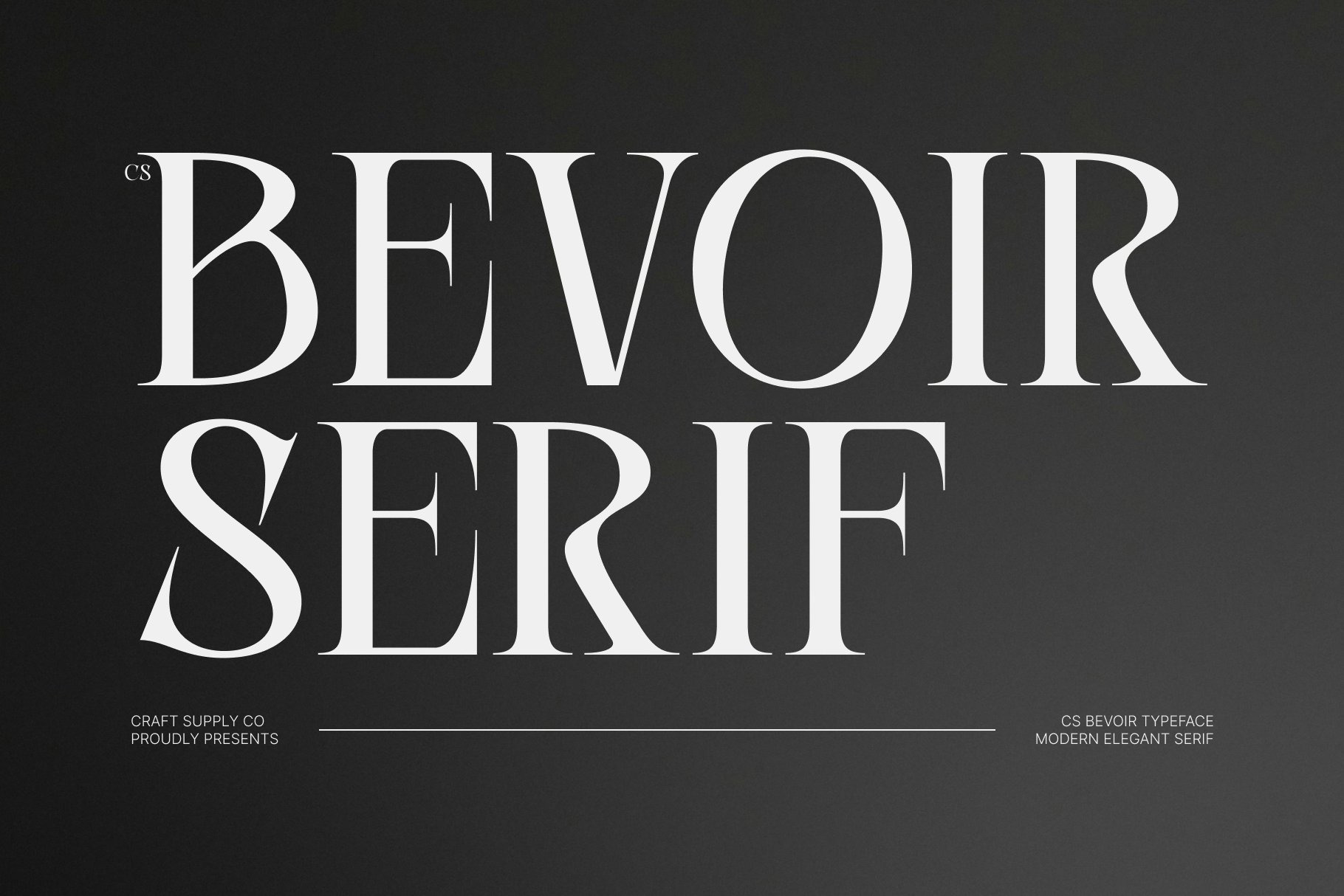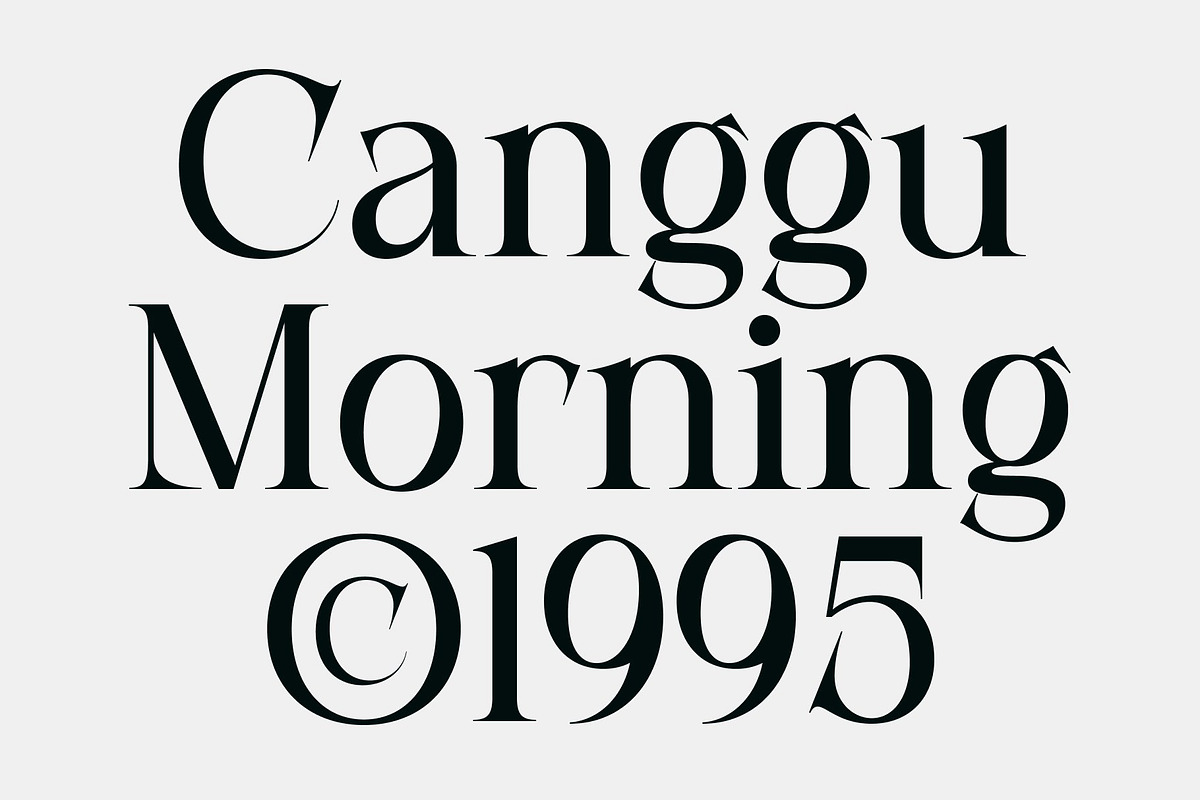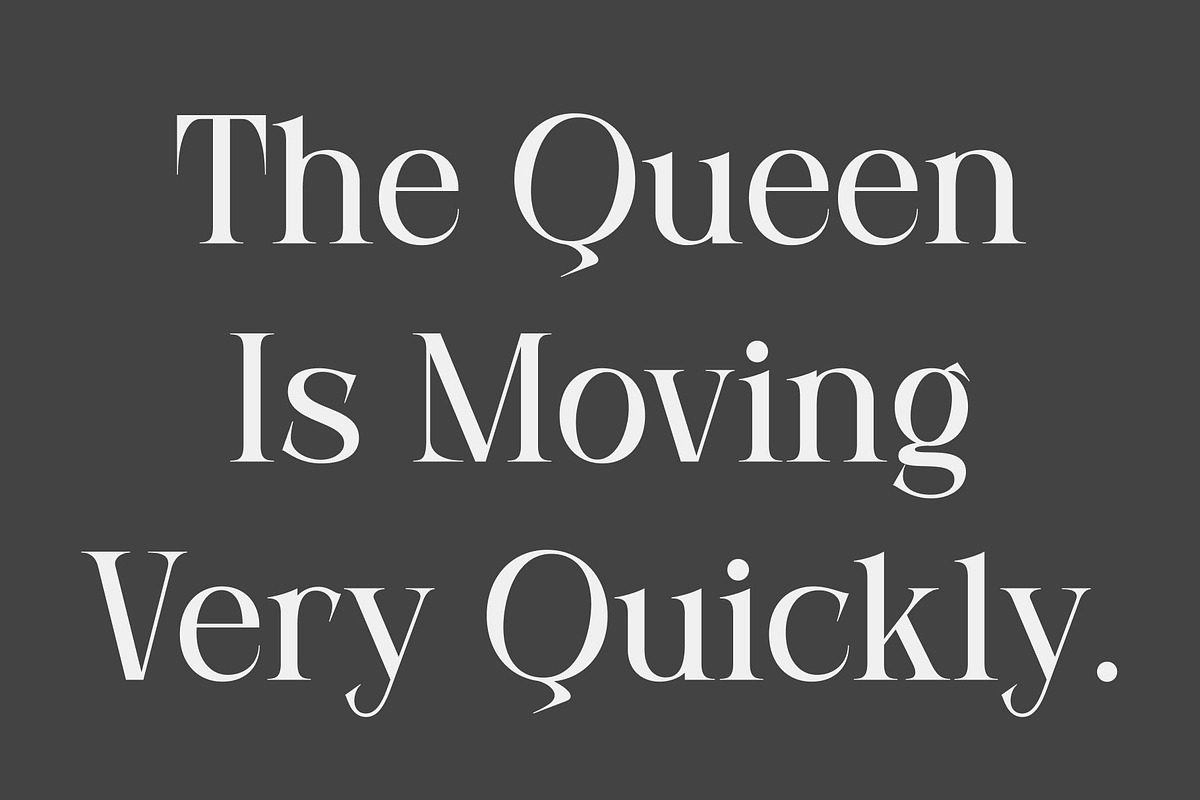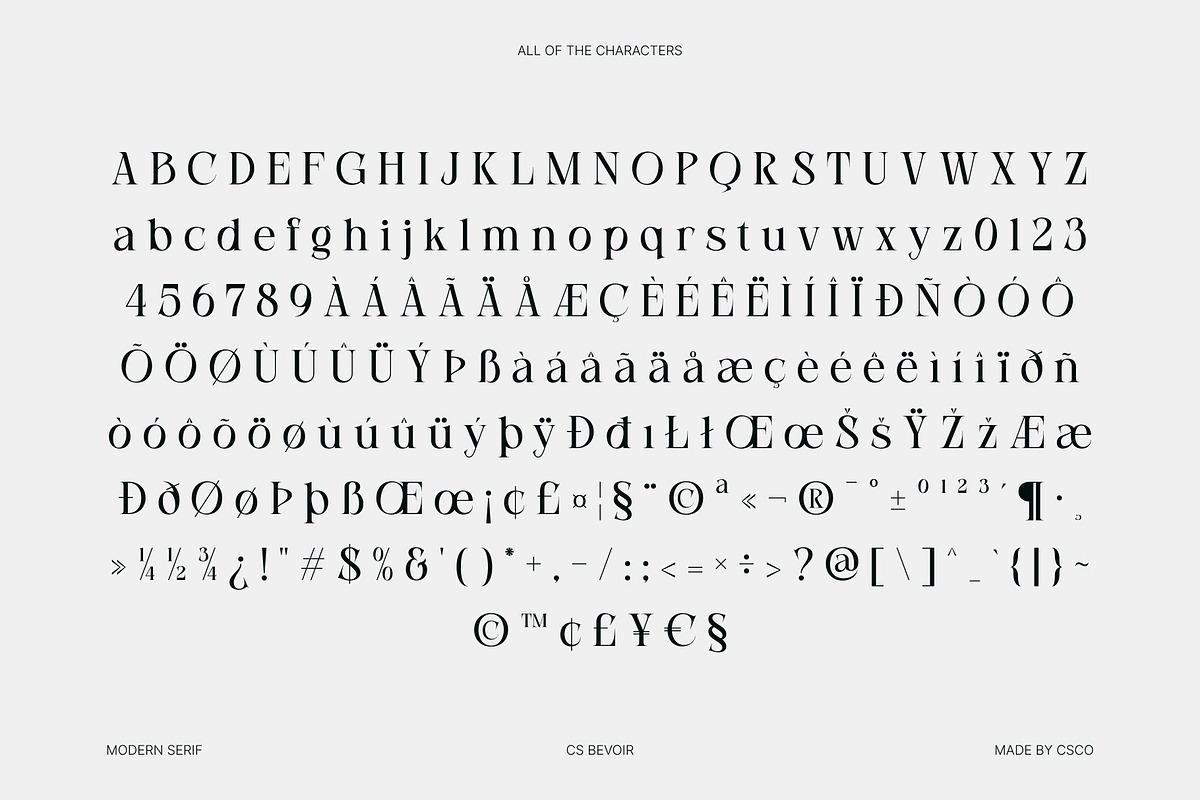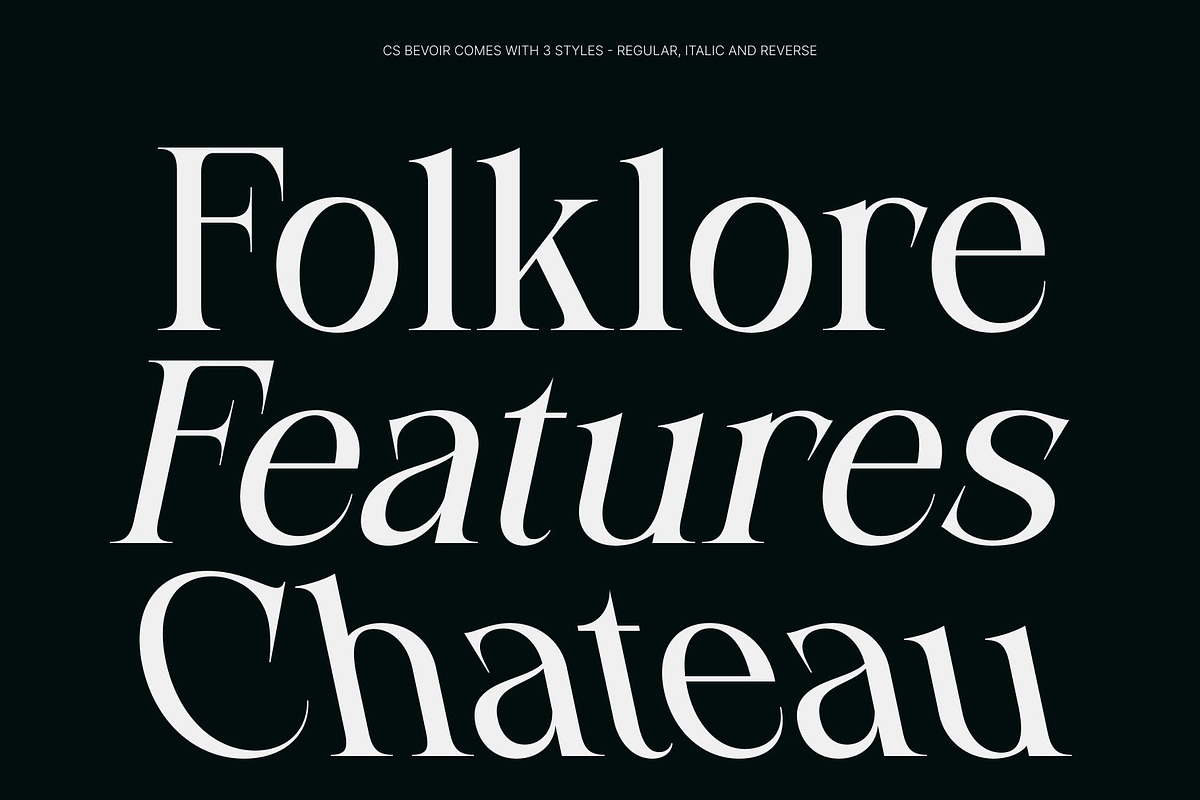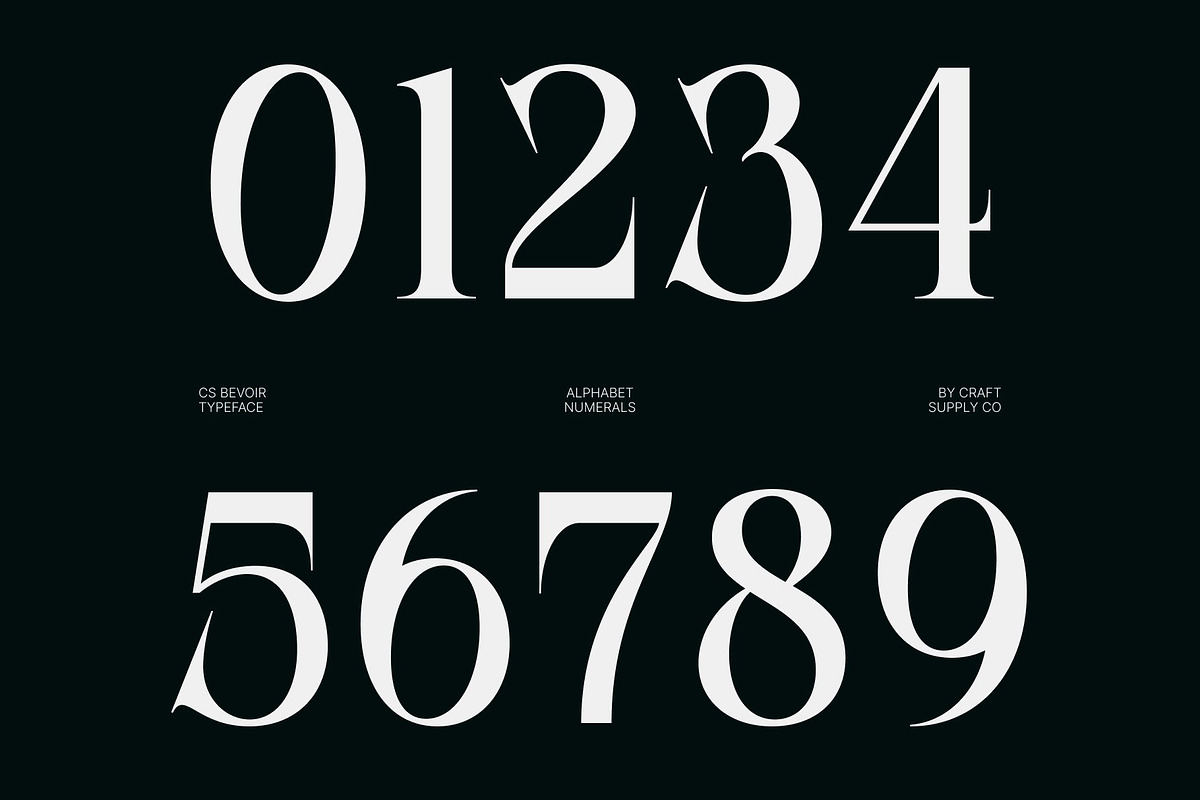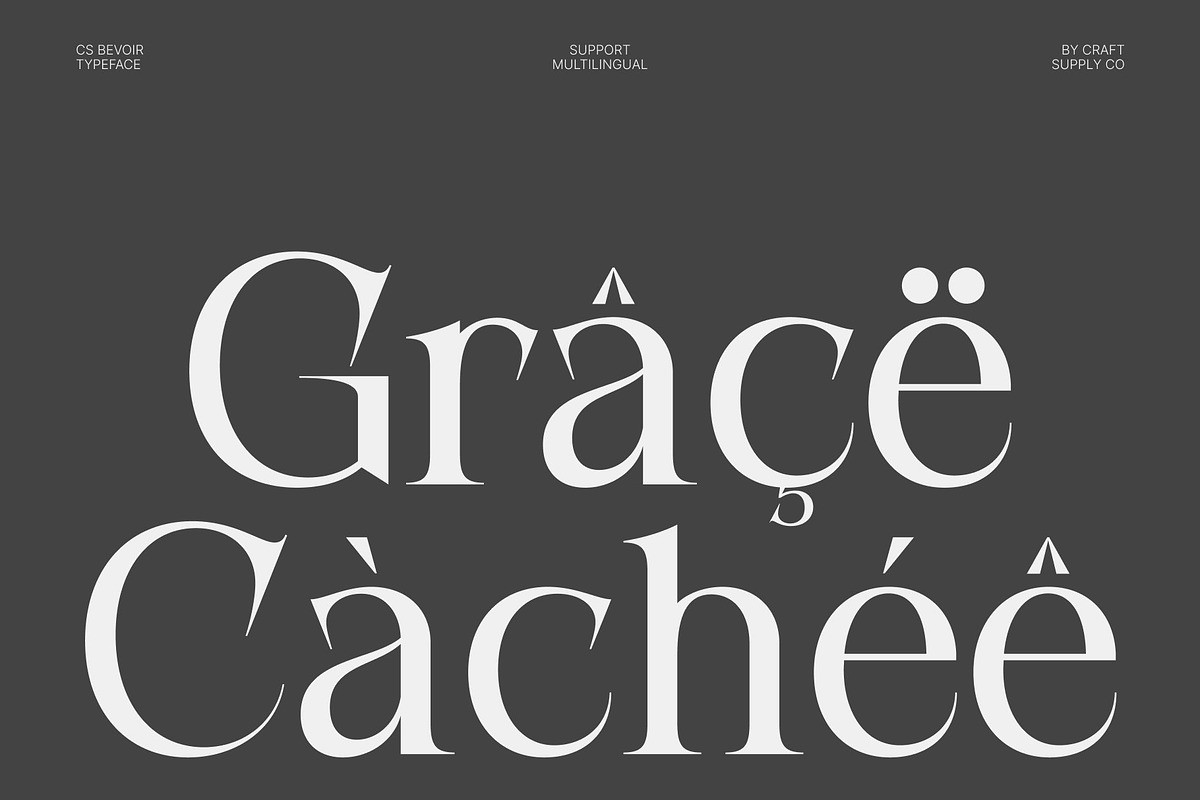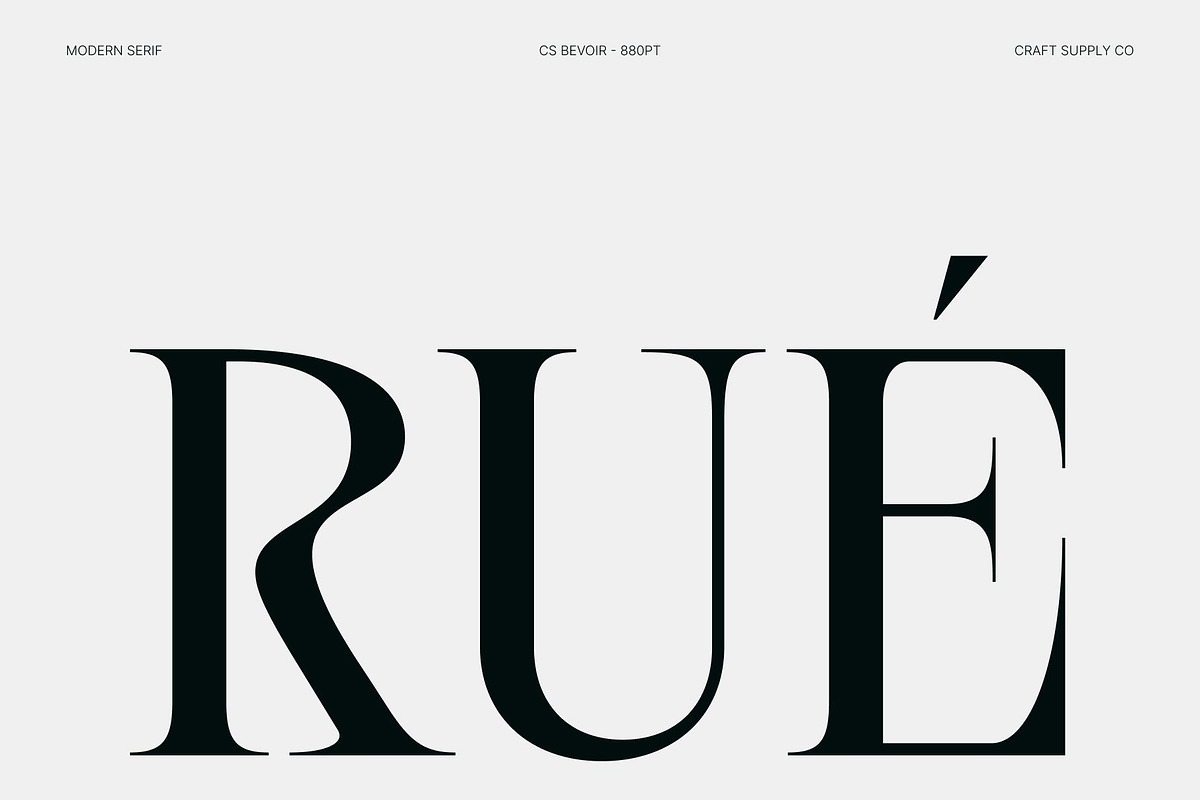
CS Bevoir – Modern Serif Font
CS Bevoir – Elegant Serif Font: Where Minimal Sophistication Meets Modern Professionalism
Slender Serif Forms with Timeless Elegance This is a slender modern serif font designed with a clean, minimal, yet stylish character. Its refined proportions and delicate serif details create a sophisticated visual identity that feels elegant, professional, and contemporary. Every letterform is carefully balanced to convey clarity and grace, making the font ideal for premium creative applications.
Minimalist Design with Professional Presence Blending modern serif sophistication with understated simplicity, this font delivers a typographic identity that feels polished, versatile, and effortlessly refined. Its slender structure creates a light and airy visual rhythm while maintaining strong readability, resulting in a typeface that communicates confidence without excess ornamentation.
Contemporary Elegance for Creative Projects This font combines minimalist aesthetics with subtle luxury. Its clean forms and graceful proportions make it suitable for both editorial compositions and branding projects, offering a sophisticated presence that adapts beautifully across print and digital media.
Perfect for Editorials, Branding, and Fashion Design Ideal for editorial spreads, branding, fashion campaigns, magazine layouts, luxury packaging, invitations, creative projects, logos, headlines, and upscale promotional materials. Its elegant serif forms make it perfect for visual identities and typography that seek to communicate refinement, style, and professionalism.
CS Bevoir Regular
CS Bevoir Italic
CS Bevoir Reverse Italic